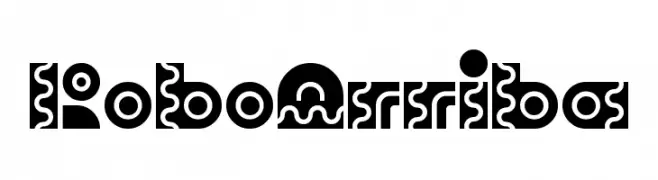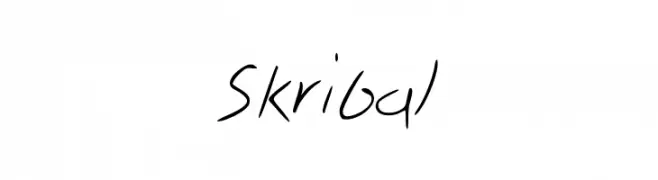
A playful, bold font with rounded, bubble-like characters perfect for fun projects.
A vintage, monospaced typewriter-style font with a textured, distressed look.
A hand-drawn, narrow font with a playful and organic style.
A dynamic handwritten font with fluid, expressive strokes.
A bold, pixelated font with a retro digital aesthetic.
A bold, futuristic font with geometric and decorative elements.
A futuristic, angular font with a bold, tech-inspired design.
A bold, hand-drawn font with a dynamic and playful style.
A bold, brush-style font with an energetic, hand-painted look.